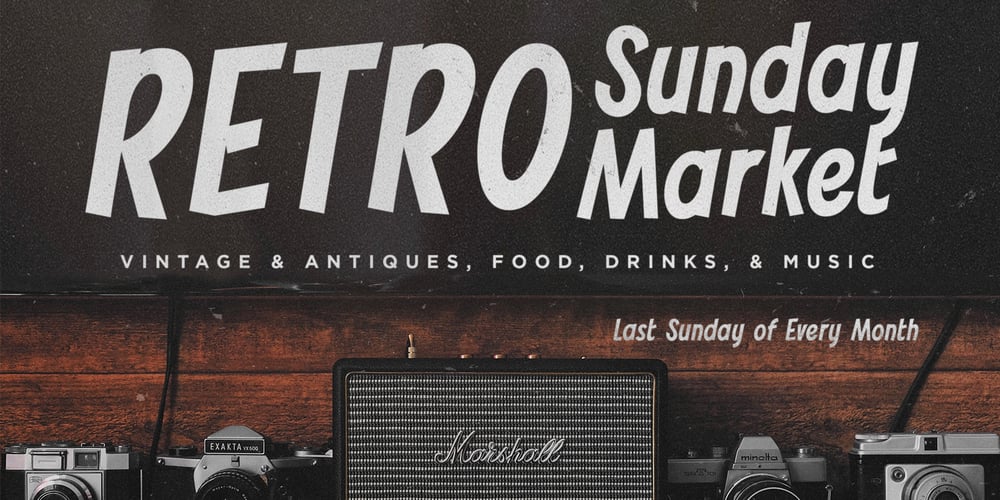
Kehlin Font Family was designed by Abdilah and published by Konstantine Studio. Kehlin contains 1 styles and family package options. Please welcome, KEHLIN!, a time machine font for you to get back to those magnificent era for the sake of old retro and vintage stuff. An implementation from the old store sign and vintage advertising. Perfectly fit for your headline content, logo, branding, posters, anytime – anything, oldsport ๐